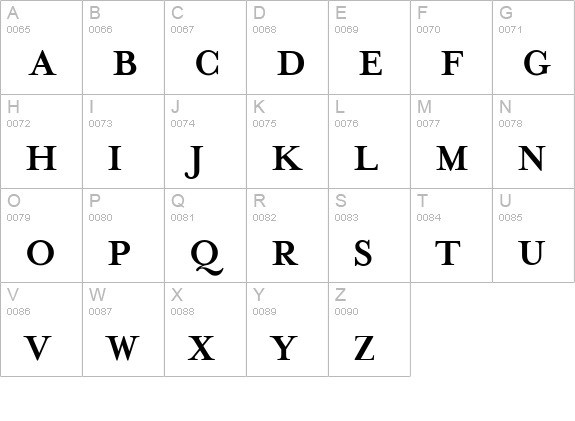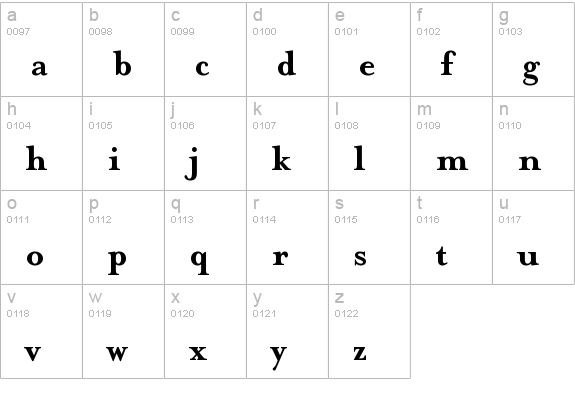
MrsEavesSmartLig-Bold Font Details
MrsEavesSmartLig-Bold is a strong, high-contrast variant in the MrsEavesSmartLig typeface family \xE2\x80\x94 well suited to headlines, attention-grabbing titles, and strong calls-to-action.
MrsEavesSmartLig-Bold font is a versatile and sophisticated typeface that exudes elegance and modernity. With its bold weight and smart ligatures, this font is perfect for creating striking headlines or adding emphasis to your designs. The well-designed characters and smooth curves make this font a standout choice for a variety of projects. Best of all, MrsEavesSmartLig-Bold font is available for free download at FontsMarket.com. Whether you're a designer looking to add a touch of sophistication to your work or a business owner in need of a stylish font for your branding, MrsEavesSmartLig-Bold font is the perfect choice. Download it today and elevate your designs with this beautiful and impactful typeface.